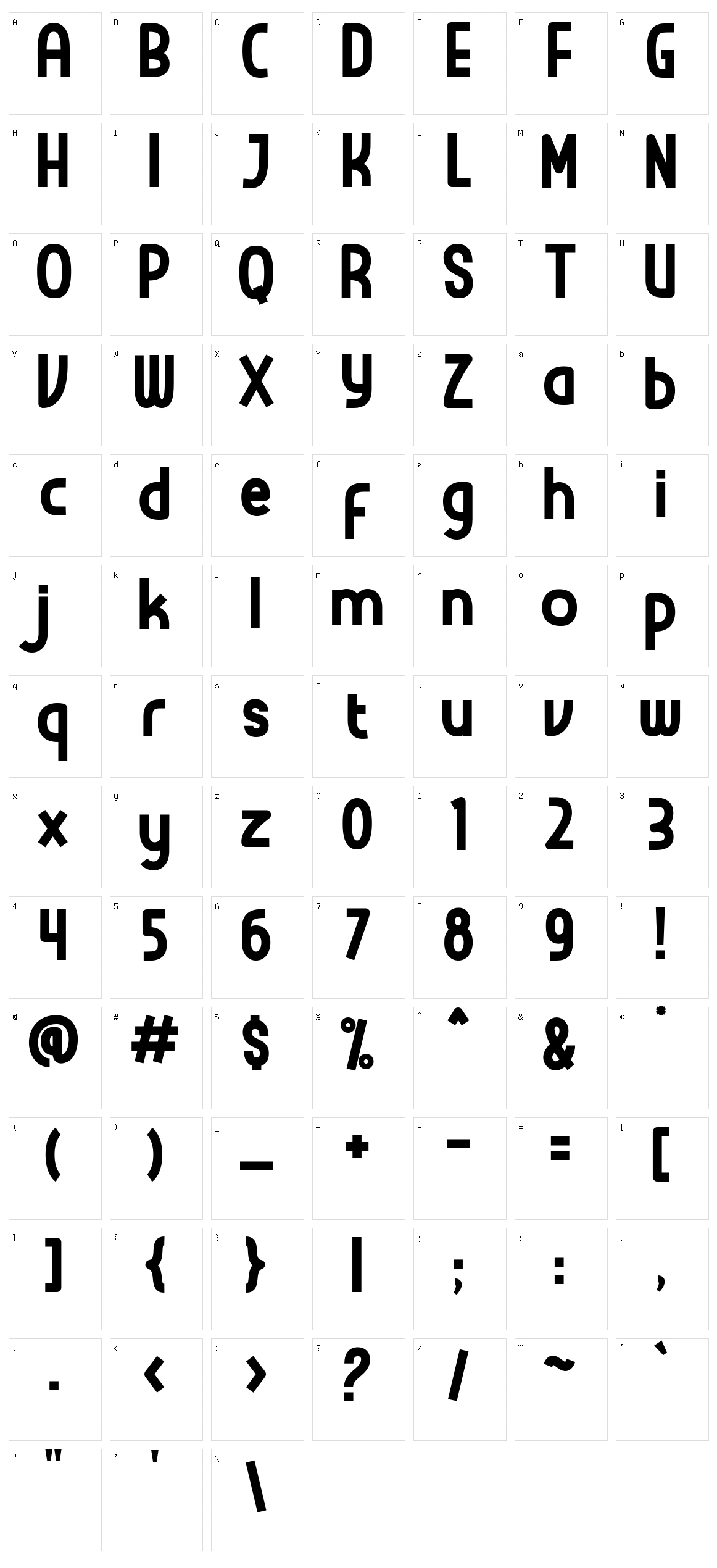
The free font Ronaldi Guje is carefully designed by StringLabs Creative Studio, showcasing a thoughtful balance of creativity and usability and falls under the Cartoon font style. When you download the ZIP file, it contains only 44.81 KB of font files, making it lightweight and quick to download. Please review the license details below to understand permitted usage and distribution rights. If license information is not available, we recommend using this font for personal projects only or contacting the author directly for commercial usage permissions.